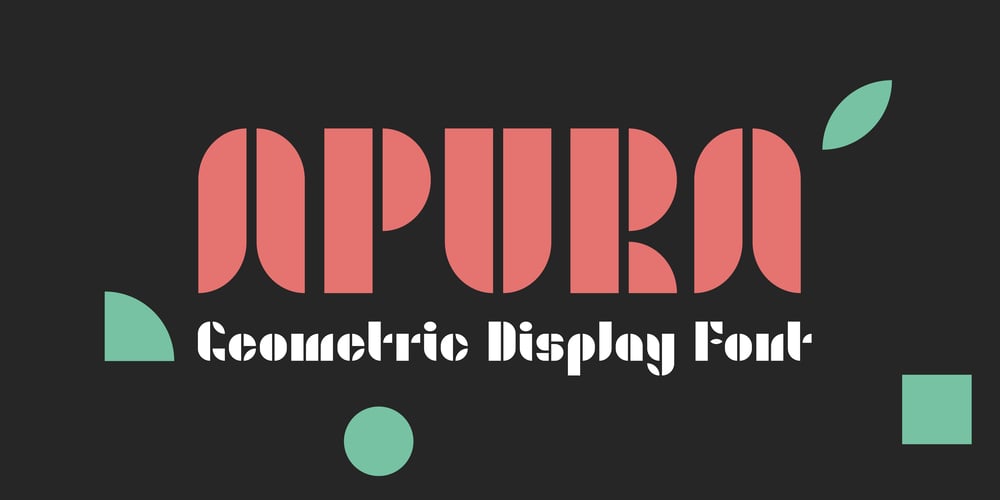
Apura
Apura font
Apura Font Family was designed by Adelina Apostolova and published by Adelina Apostolova. Apura contains 1 styles and family package options. Apura stands for a clear geometric language based on two main shapes: a circle and a square, complemented by organic elements. It‘s perfect for headlines, posters, experimental designs as well as branding.The font includes uppercase and lowercase characters, both latin and cyrillic, alternates, numbers, punctuation marks and symbols.